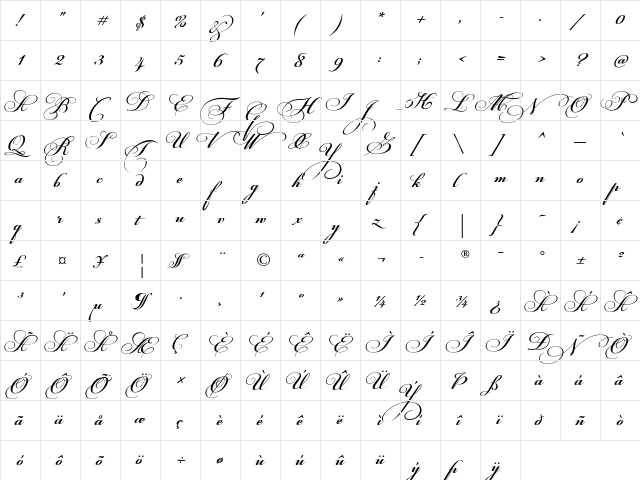
PF Champion Script Pro Bold
| Foundry | Parachute蠗orldwide |
| Designer | Panos Vassiliou |
Design Context for PF Champion Script Pro Typeface
PF Champion Script Pro brings a calligraphic fluidity to the page — its connecting strokes and expressive curves give it an unmistakably human quality. The heavy weight commands attention and anchors typographic hierarchies.
Font Pairing: Combine PF Champion Script Pro with a simple geometric sans for maximum contrast — the tension between flowing curves and clean structure is a classic typographic pairing.
Pro Tip: Use PF Champion Script Pro for short runs of text — names, titles, or taglines. Extended body copy in script faces tires the eye quickly.